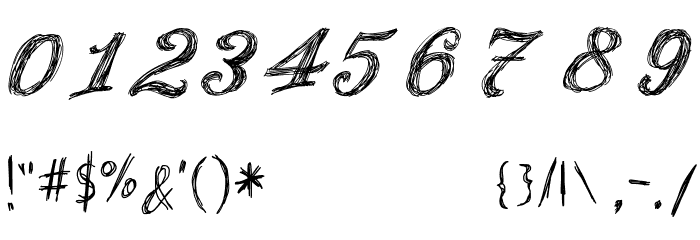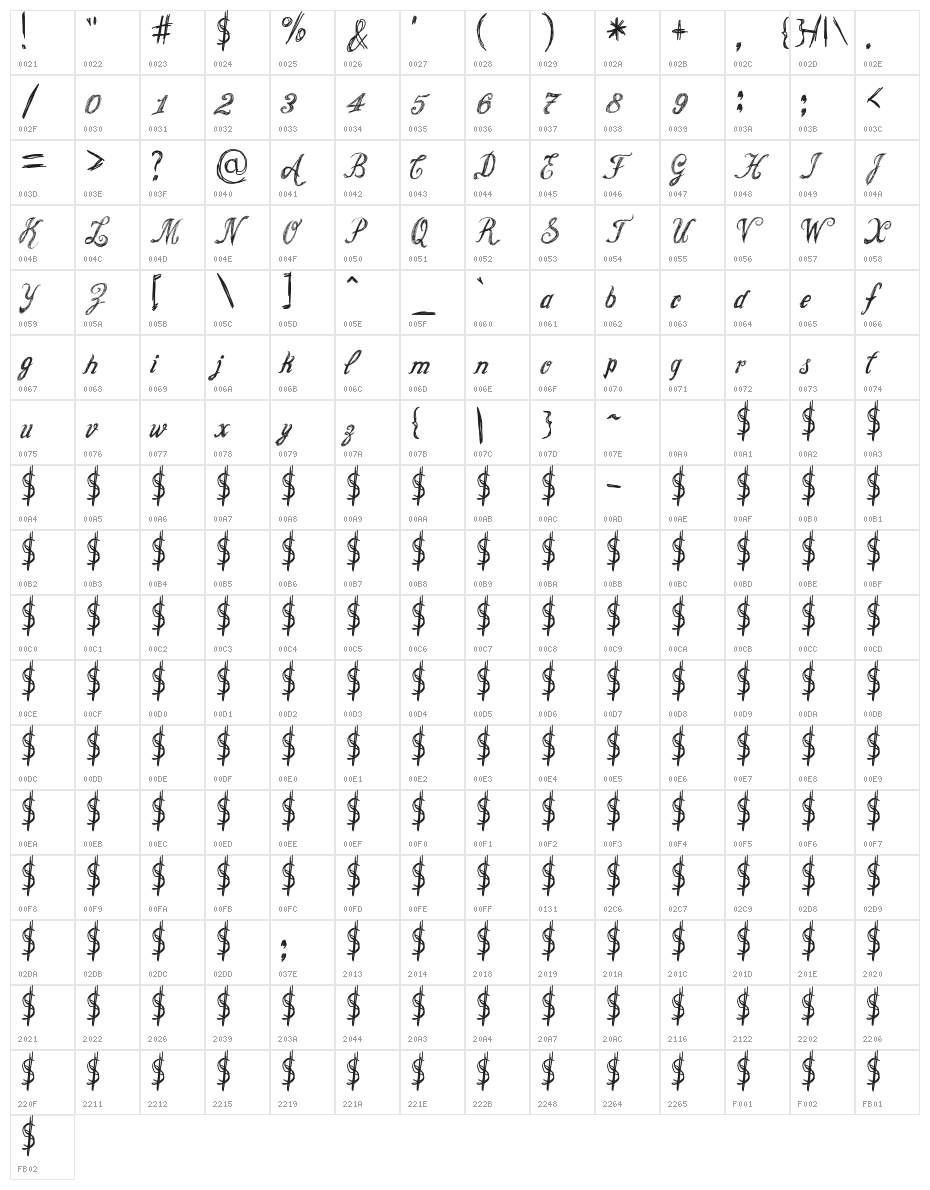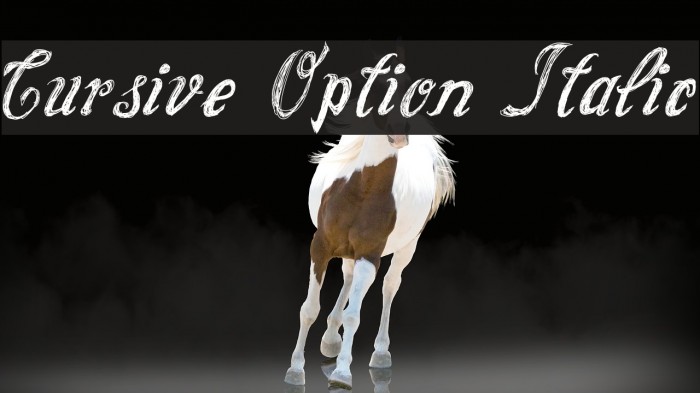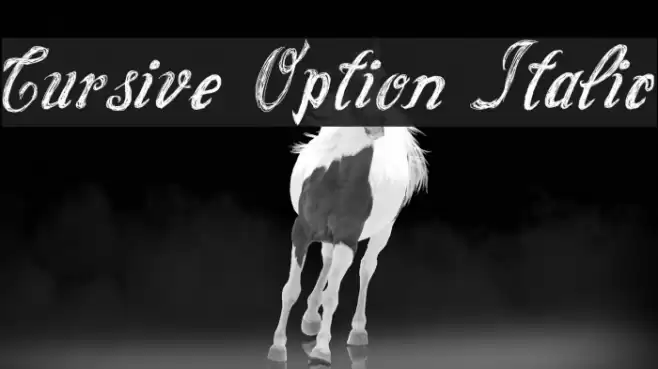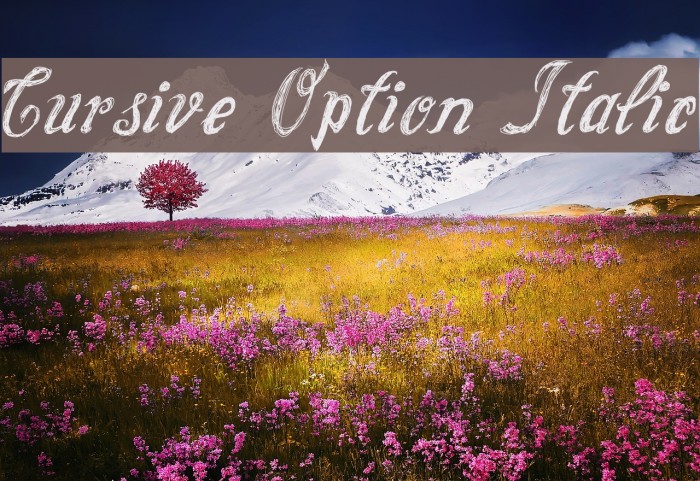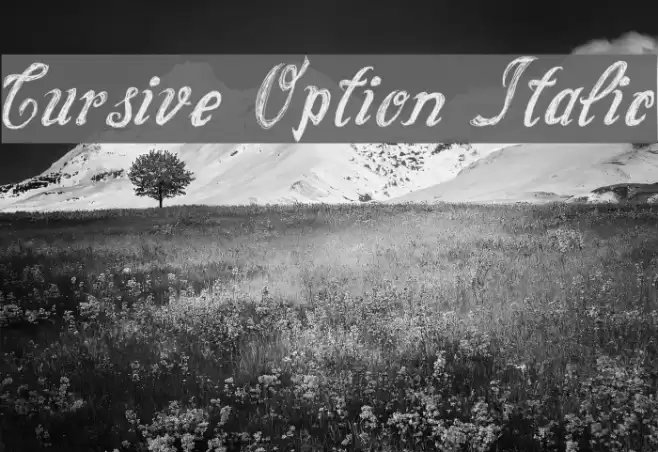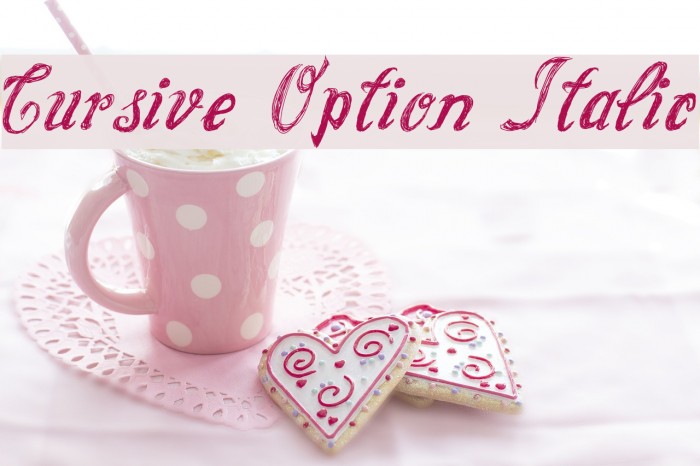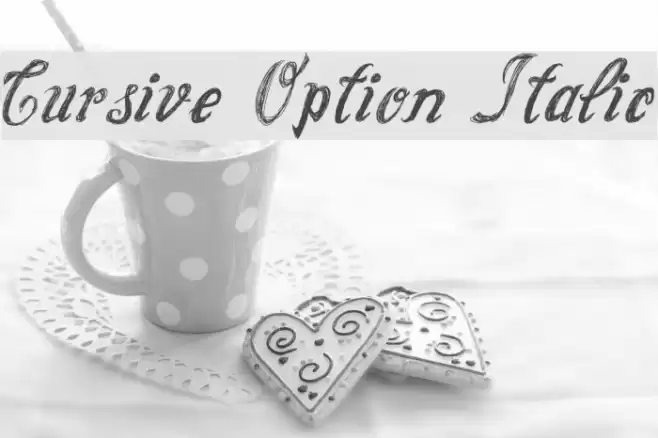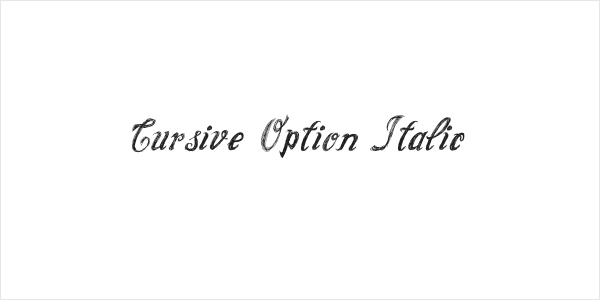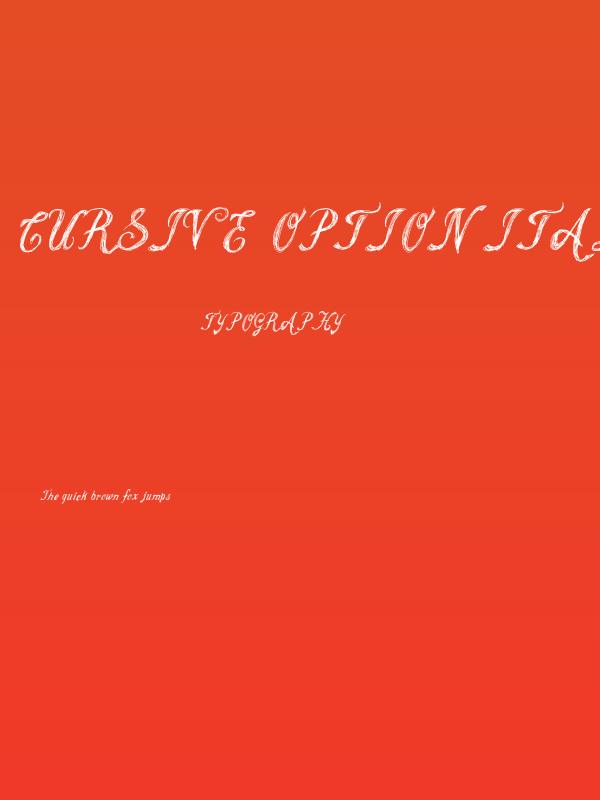
Cursive Option Italic Font
Cursive Option Italic Description
This font features an elegant cursive style with a distinct italic slant, giving it a dynamic and flowing appearance. The characters are intricately designed with a hand-drawn quality, showcasing a blend of thick and thin strokes that add a sense of sophistication and artistry. The uppercase letters are bold and prominent, while the lowercase letters maintain a consistent flow, enhancing readability. Numbers and special characters are crafted with the same attention to detail, making them visually cohesive with the alphabet. The overall design exudes a classic yet artistic vibe, suitable for various creative applications.
| Proposed Projects | Ideal for wedding invitations, greeting cards, branding projects, and artistic posters. |